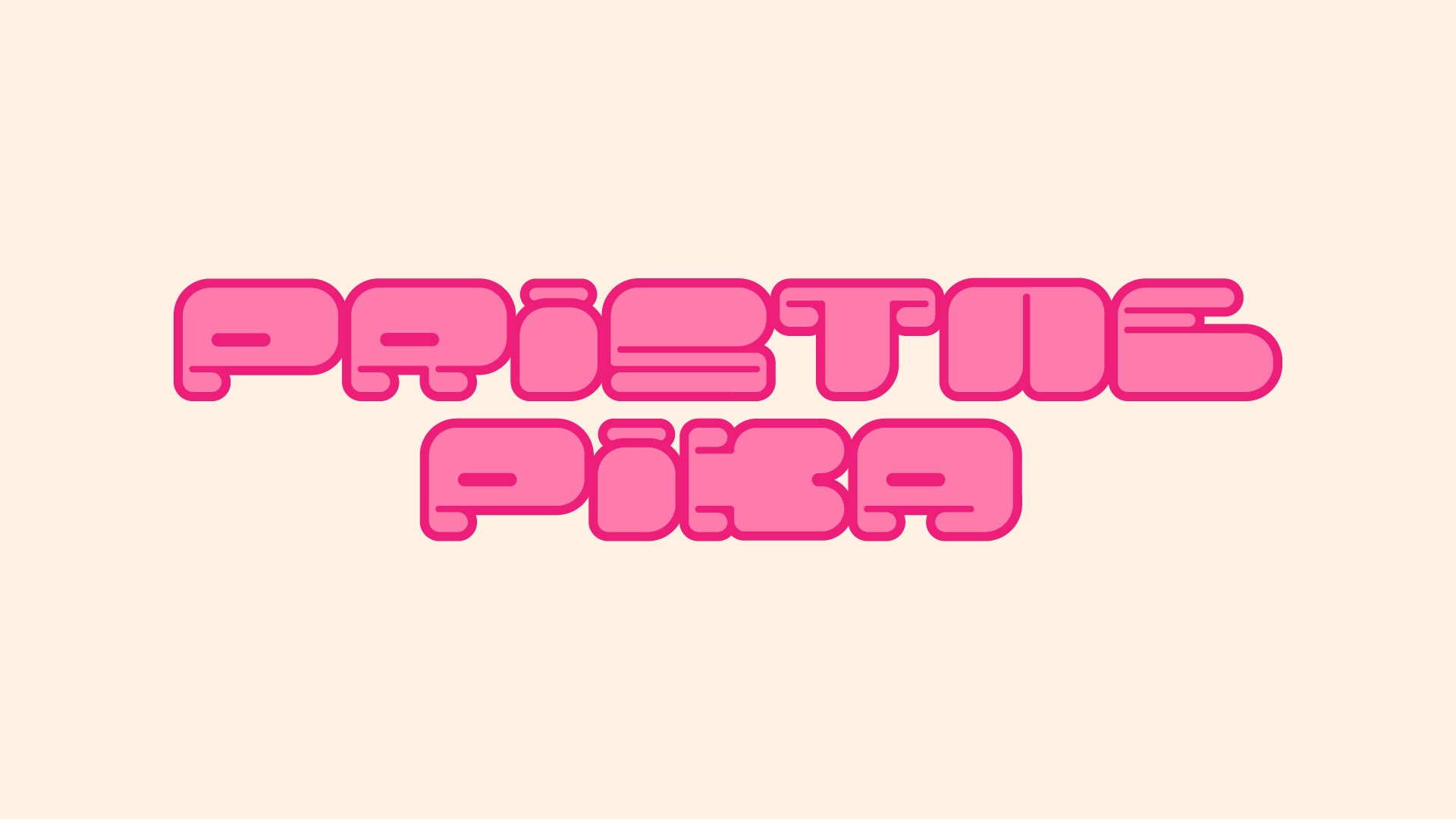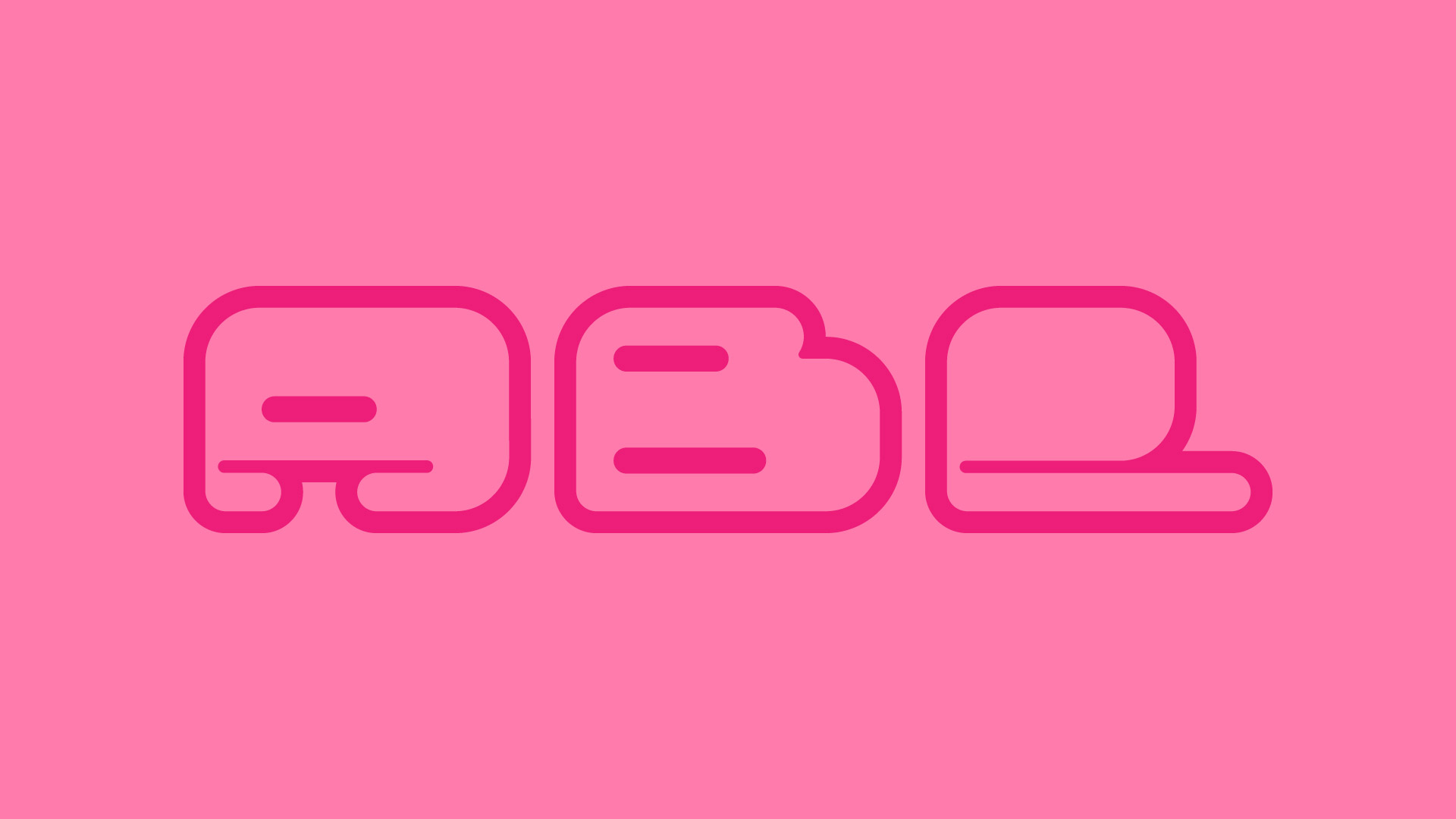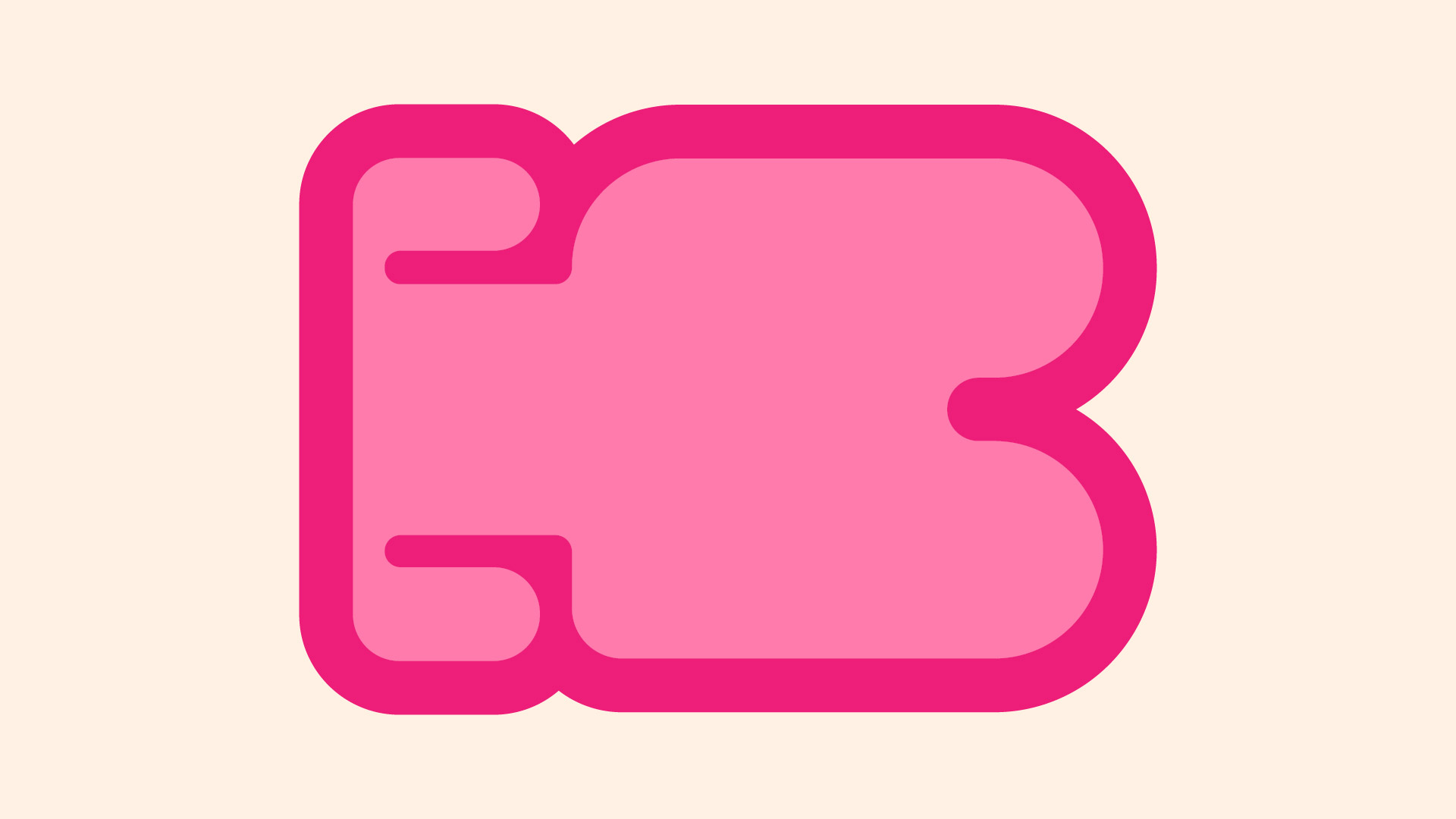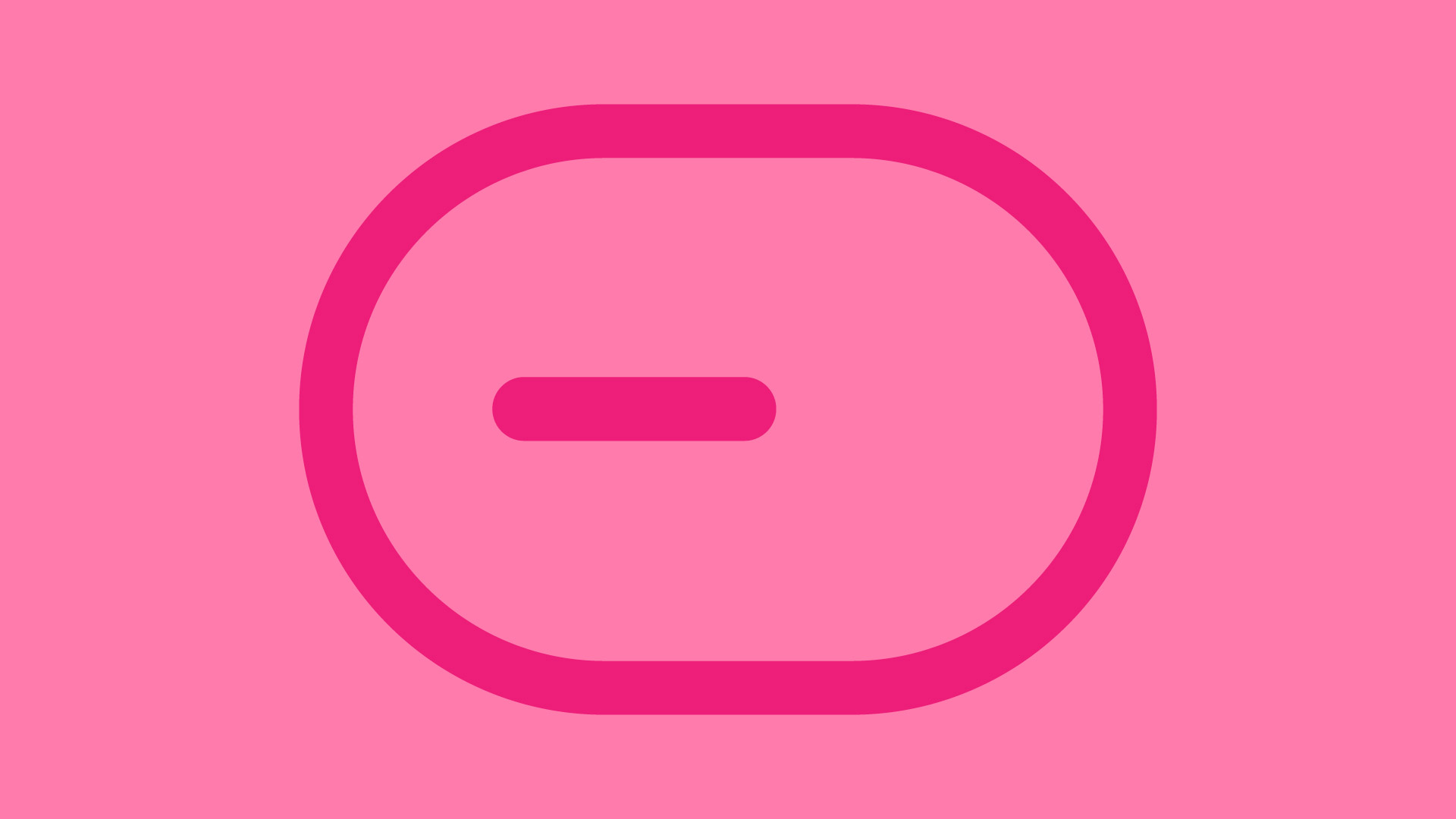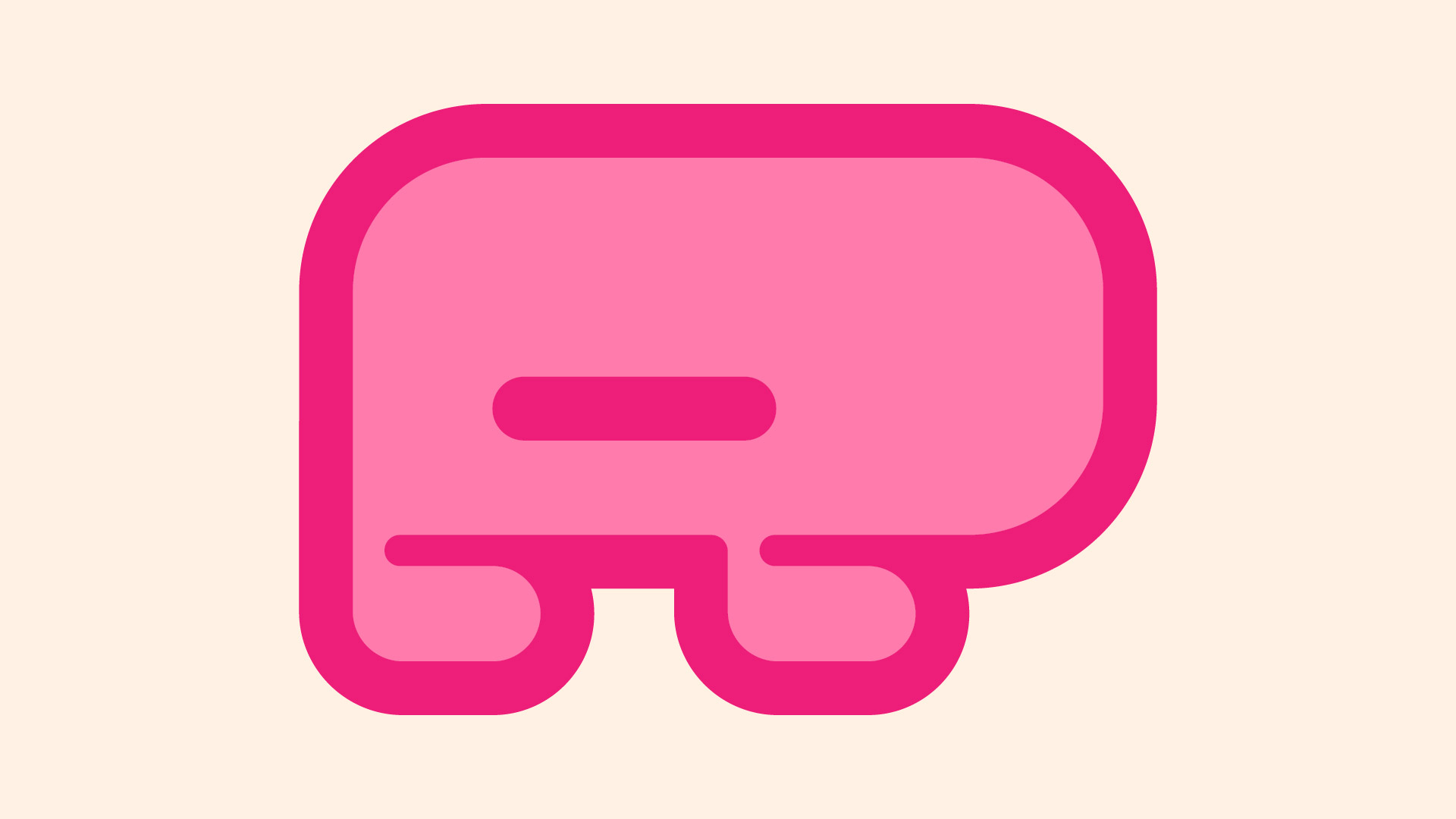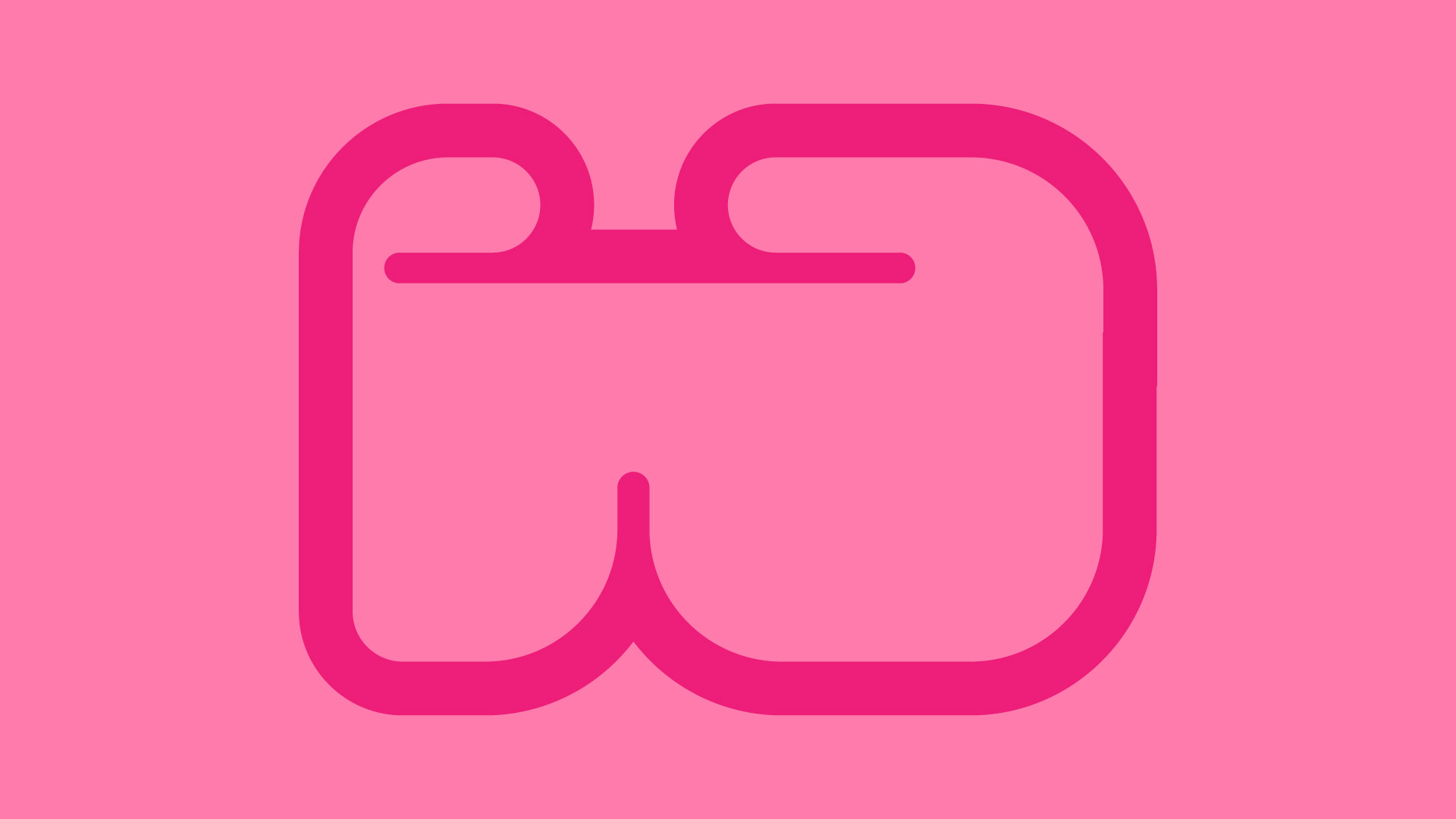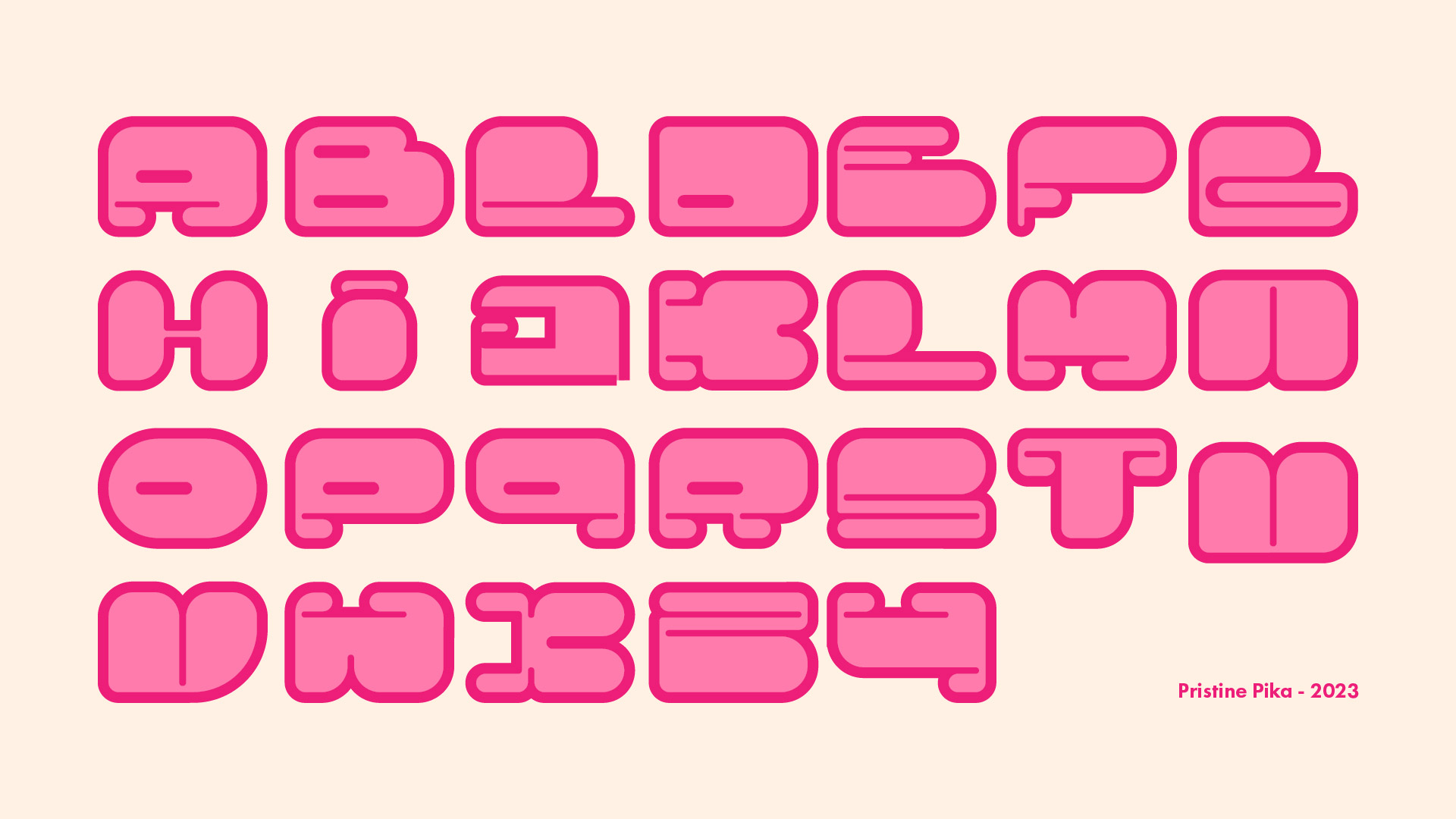
Pristine Pika - A typography for a magical girl
I created a typography inspired by the 2000s to reference the magical girls trend (a Japanese fantasy sub-genre featuring young girls endowed with magical powers).